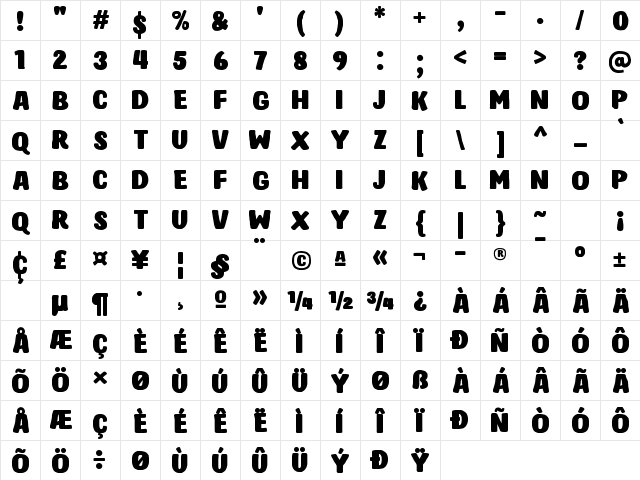
Hastro Regular
Foundry: 7NTypes
Designer: Situjuh Nazara
Hastro Family
Design Context for Hastro
Hastro is a composed and adaptable typeface that performs quietly and consistently across a wide range of design contexts.